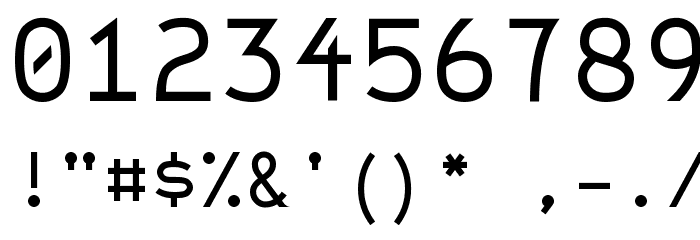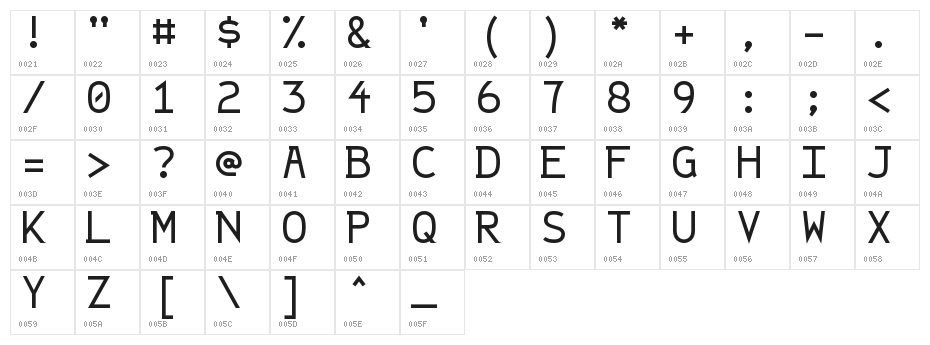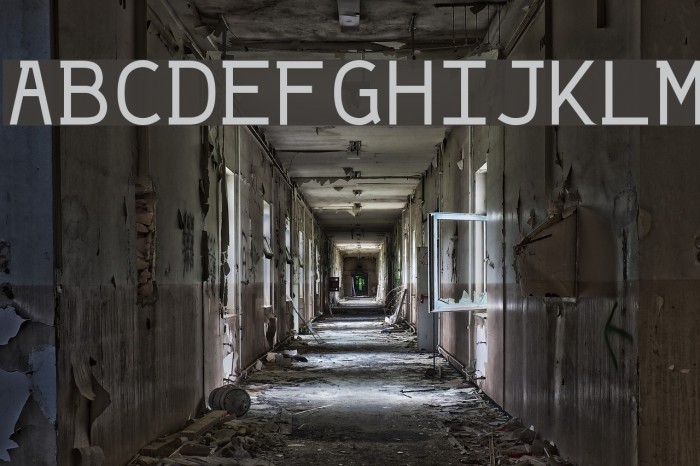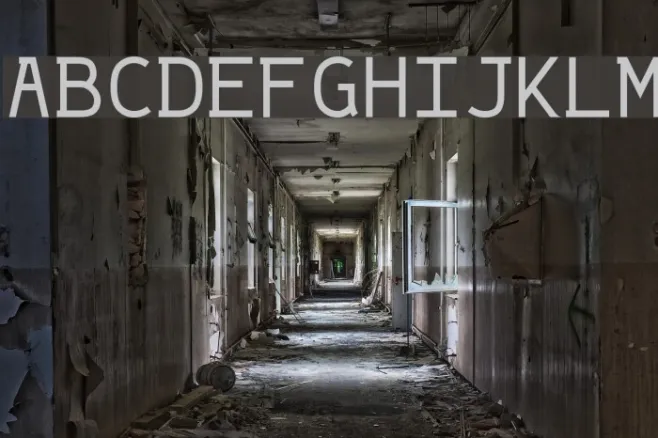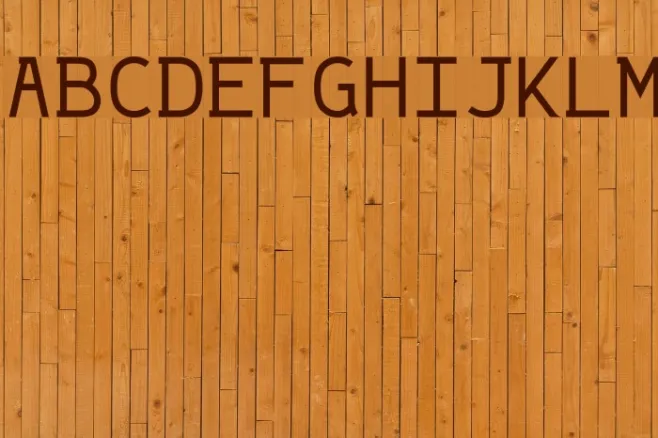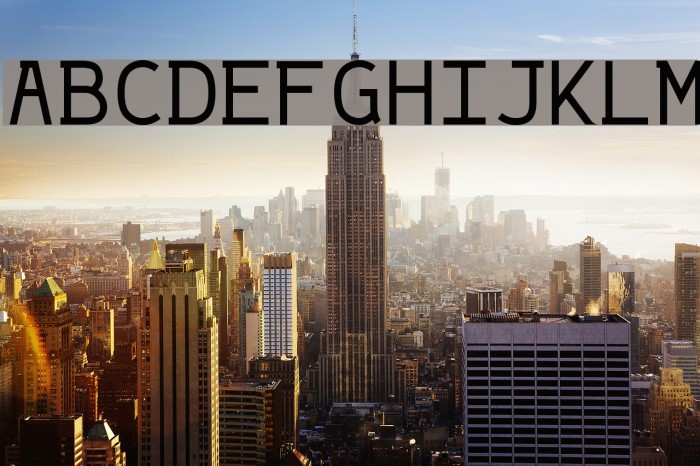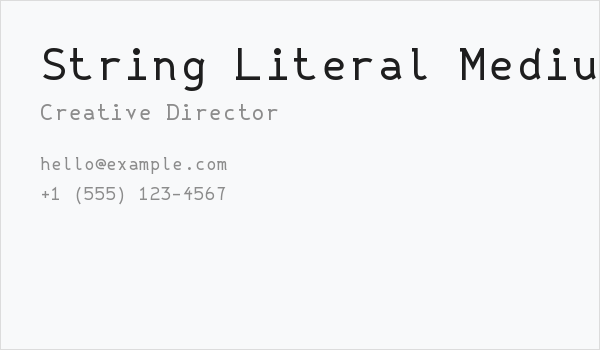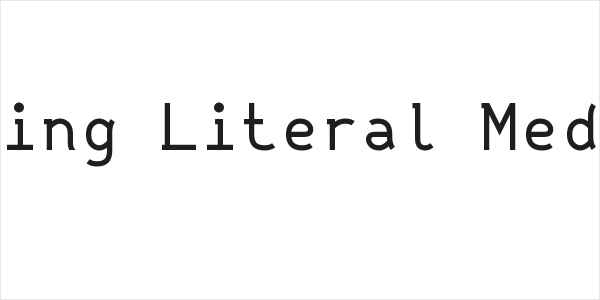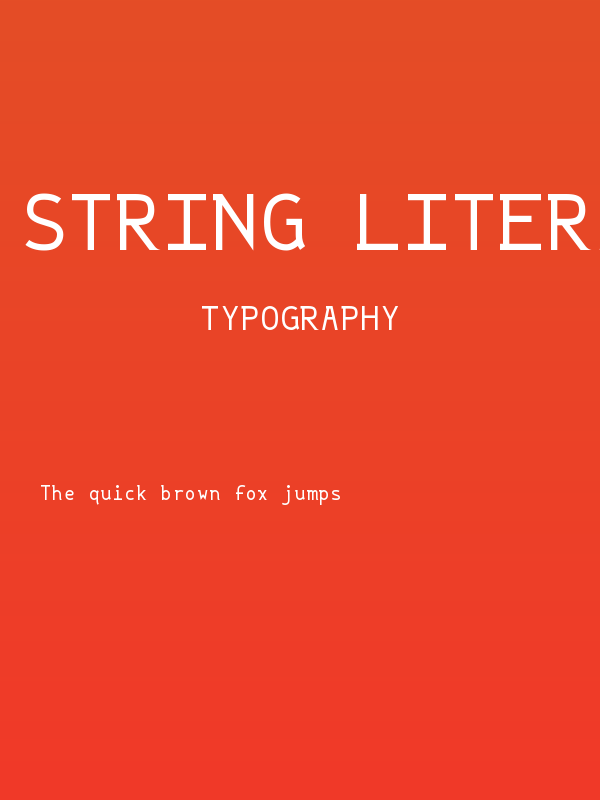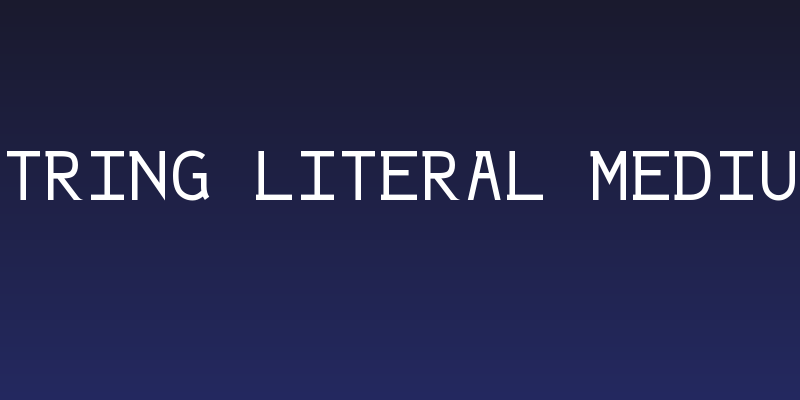
String Literal Medium Font
String Literal Medium Description
This font features a clean and modern design with a monospaced style, characterized by uniform character width. The letters are well-proportioned, with a slight curve that adds a touch of friendliness to the otherwise technical appearance. The uppercase and lowercase letters maintain a consistent height, ensuring readability and clarity. Numbers are distinct and easily distinguishable, making them ideal for coding or data presentation. The special characters are clearly defined, enhancing the font's utility for various applications. Overall, this font balances functionality with a subtle aesthetic appeal.
| Use Case | Coding, Technical documentation, Data presentation |
| Proposed Projects | Ideal for coding environments, technical documentation, data presentation, and any project requiring precise alignment. |